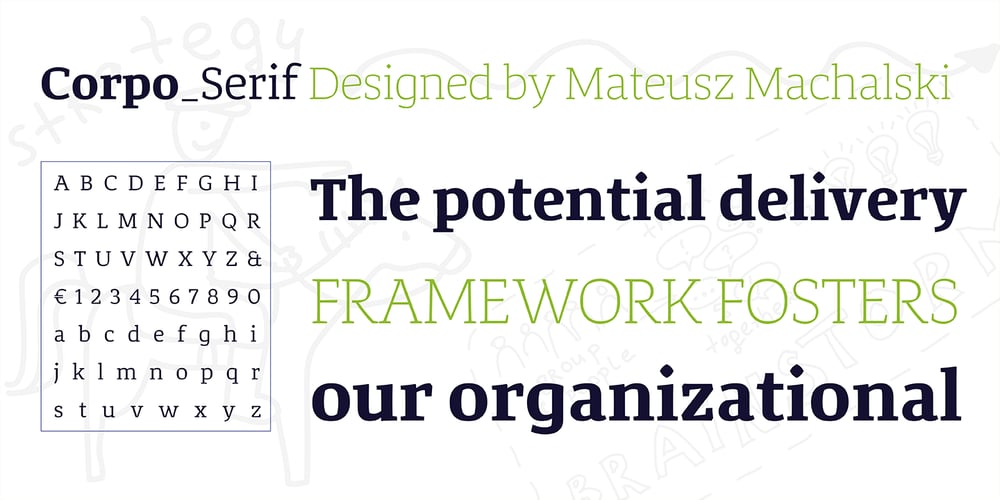
Corpo Serif Font Family was designed by Mateusz Machalski and published by Machalski. Corpo Serif contains 12 styles and family package options. Corpo Serif is REFRESHED version of my old font Korpo Serif. Corpo Serif, designed by Mateusz Machalski, is a serif type family with a friendly feel. This type comprises 12 variants with 6 weights. The high contrast and high x height is perfect for headlines and display uses. Corpo Serif is a great complement for Corpo Sans.